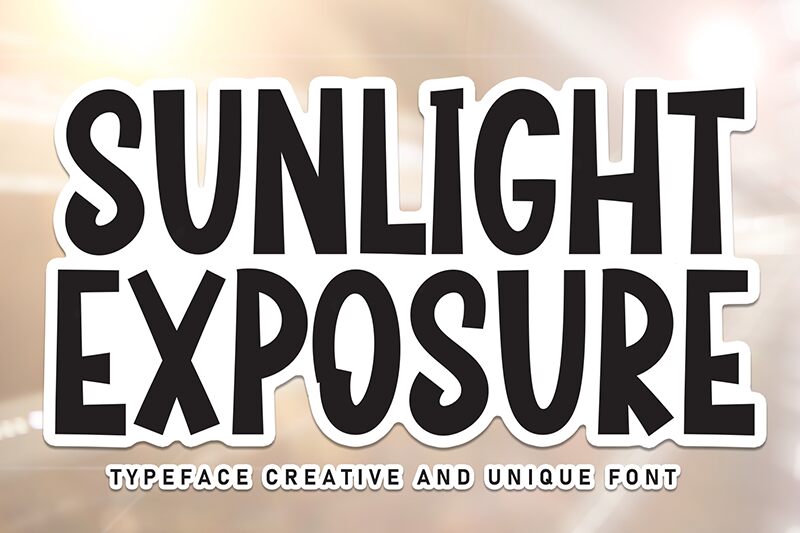
Sunlight Exposure
Sunlight Exposure font is a free display typeface from Scratchones known for its condensed width and comic style. The font delivers a playful design that seamlessly mixes legibility with an artistic handwriting vibe, especially in its detailed curves.
It has dozens of uses in retro posters, video thumbnails, magazine covers, newspapers, film posters and titles, book covers and titles, publication headers and sub-headers. Furthermore, use it to attract readers’ attention on social media including Facebook posts!